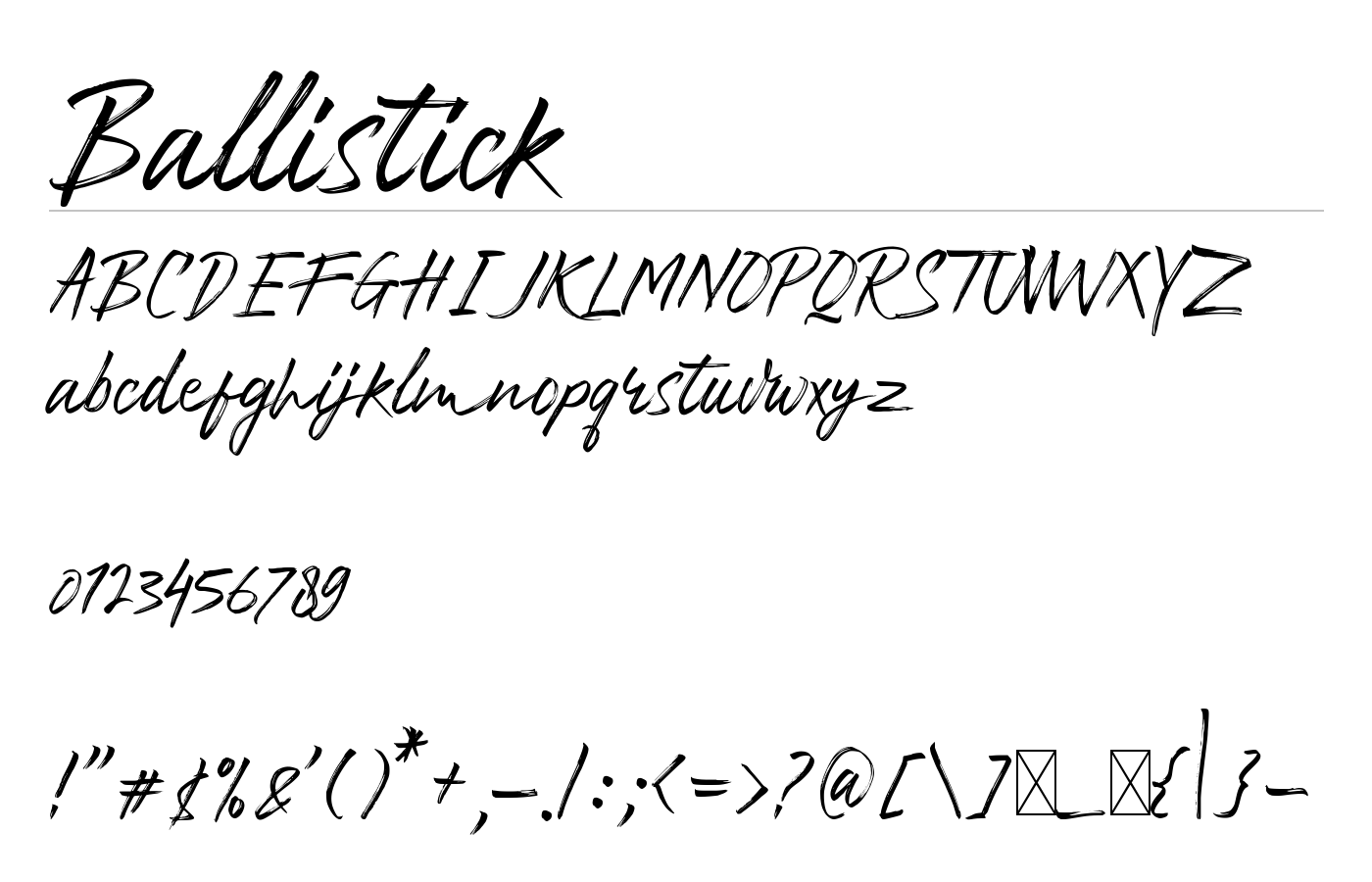
Ballistick is an energetic, brush-style script font with a casual, handwritten feel. Its medium weight strokes vary in thickness with expressive, sharp edges that create a dynamic and lively appearance, perfect for adding a personal, artistic touch to logos, invitations, and creative branding projects. This font’s informal elegance makes it ideal for designs that want to convey creativity, spontaneity, and a modern, playful vibe.
Ballistick Font
About Ballistick Font
| Font family | Ballistick Font |
| Release date | 2020-04-20 |
| Designer | Ikrar Bey Khubaib |